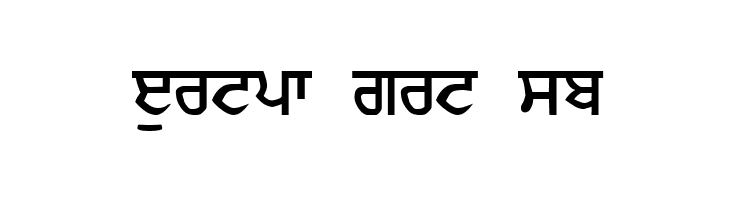
GurmukhiIIGS Font
A bold and structured Gurmukhi script font, ideal for Punjabi text.
Gurmukhi_IIGS Font
A bold and modern Gurmukhi script font with strong, uniform strokes.